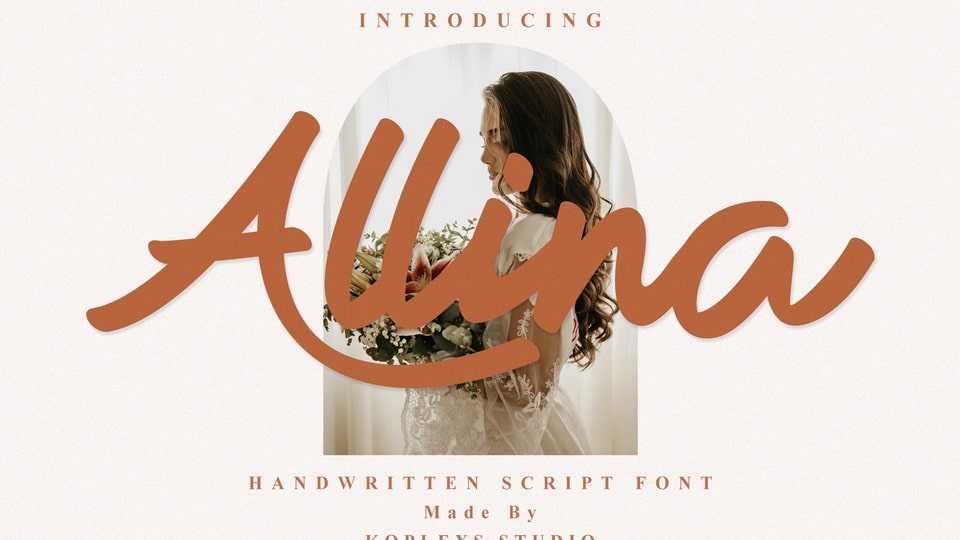
Download Allina font, a bold signature style script typeface. Allina is perfect for logos, invitations, stationery, wedding designs, social media posts, advertisements, product packaging, product designs, labels, photography, watermarks, special events, or whatever.
Designer: Koplexs Studio